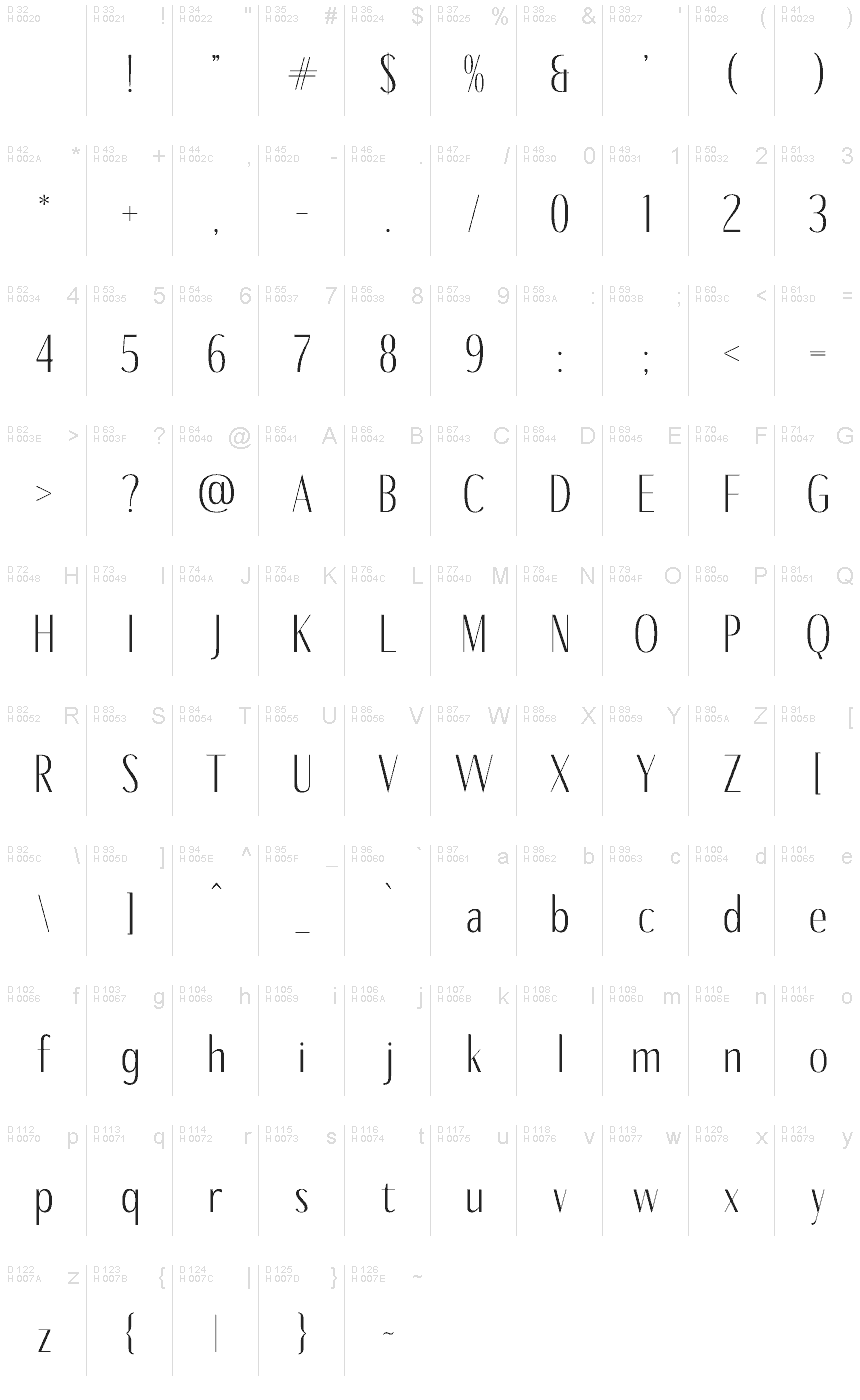
Benedict Sans Light
Benedict Sans Light font by Storytype Studio is an elegant modern display font in a light and condensed weight. This sans serif font features flowing clean lines which offer a minimalist aesthetic suitable for visual design projects that require clarity, precision, and softness.
The free professional font works for product packaging designs, product labels, apparel design and branding, advertising copy elements (logos/typography), invitations/postcards/flyers… even theatrical stage props or posters!